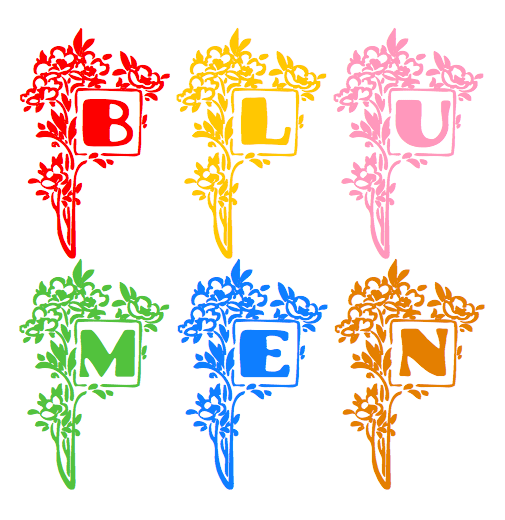
Preview and download Blumenstrauss Caps Font. Created by Typo-Graf in Fancy Initials styles with Public domain / GPL / OFL license.
Categories | Fancy, Initials |
Note by Typo-Graf | |
One evening fun in creating this Art Nouveau font! I hope you enjoy it! The font is public domain, free for all uses, commercial and private. |